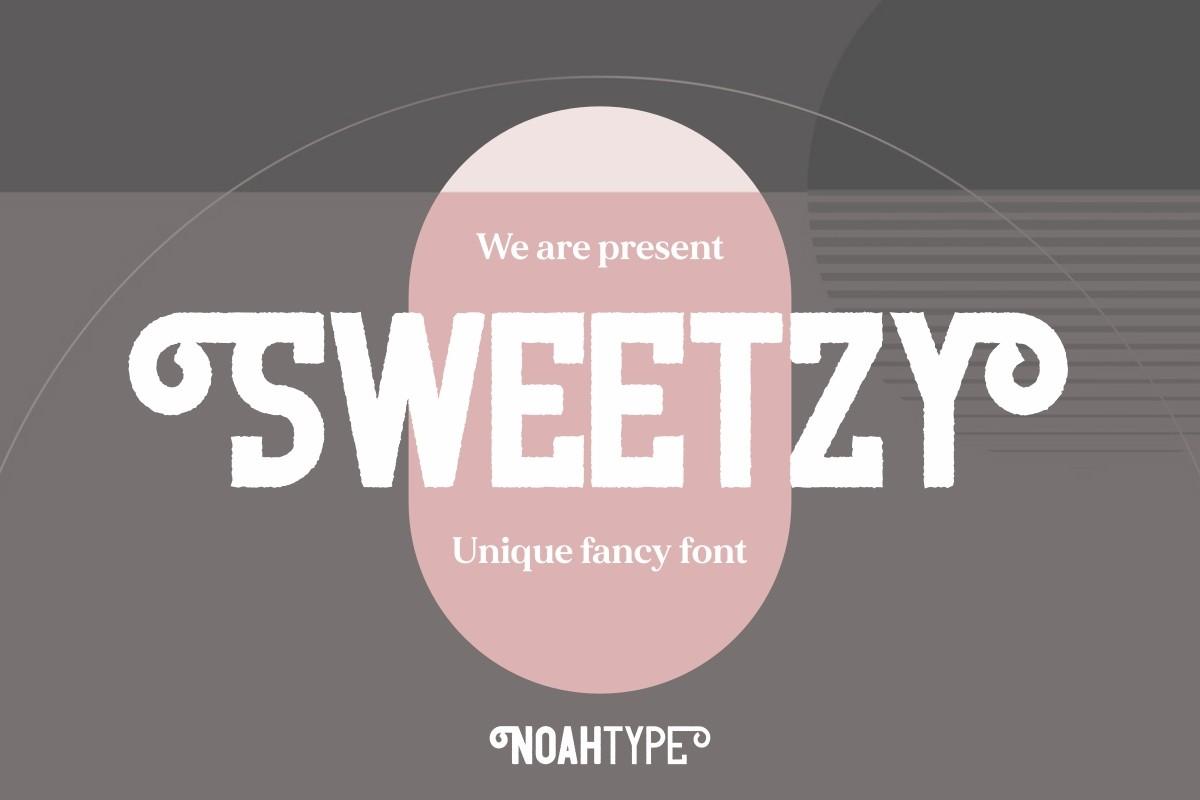
Sweetzy Font Description
Sweetzy is a unique fancy display font with eroded style in every letter that will bring a special effect to any design. It will work perfectly for branding, artists, events, make-up, fashion products, coffee shops, book covers, headlines, posters, products, signs, and many more fun things. This font is PUA encoded, which means you can access all of the glyphs and swashes with ease!